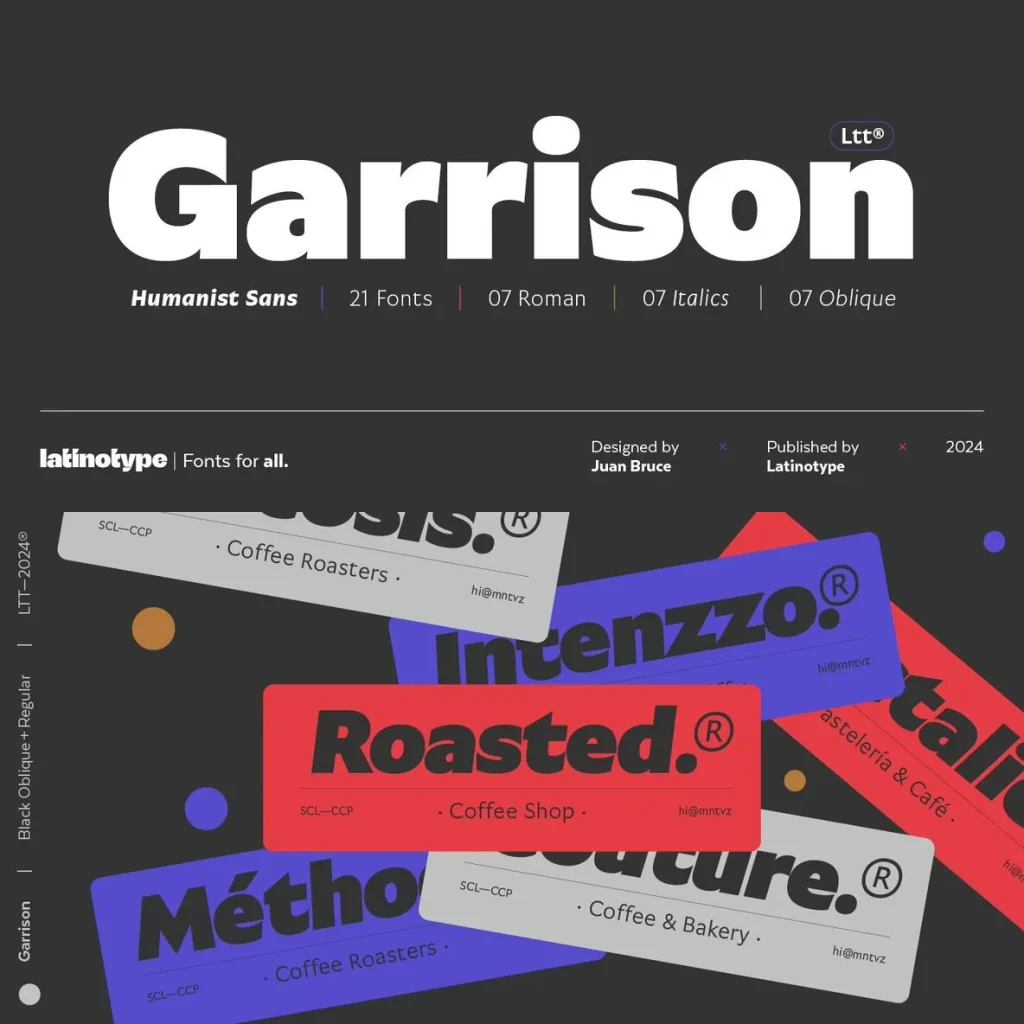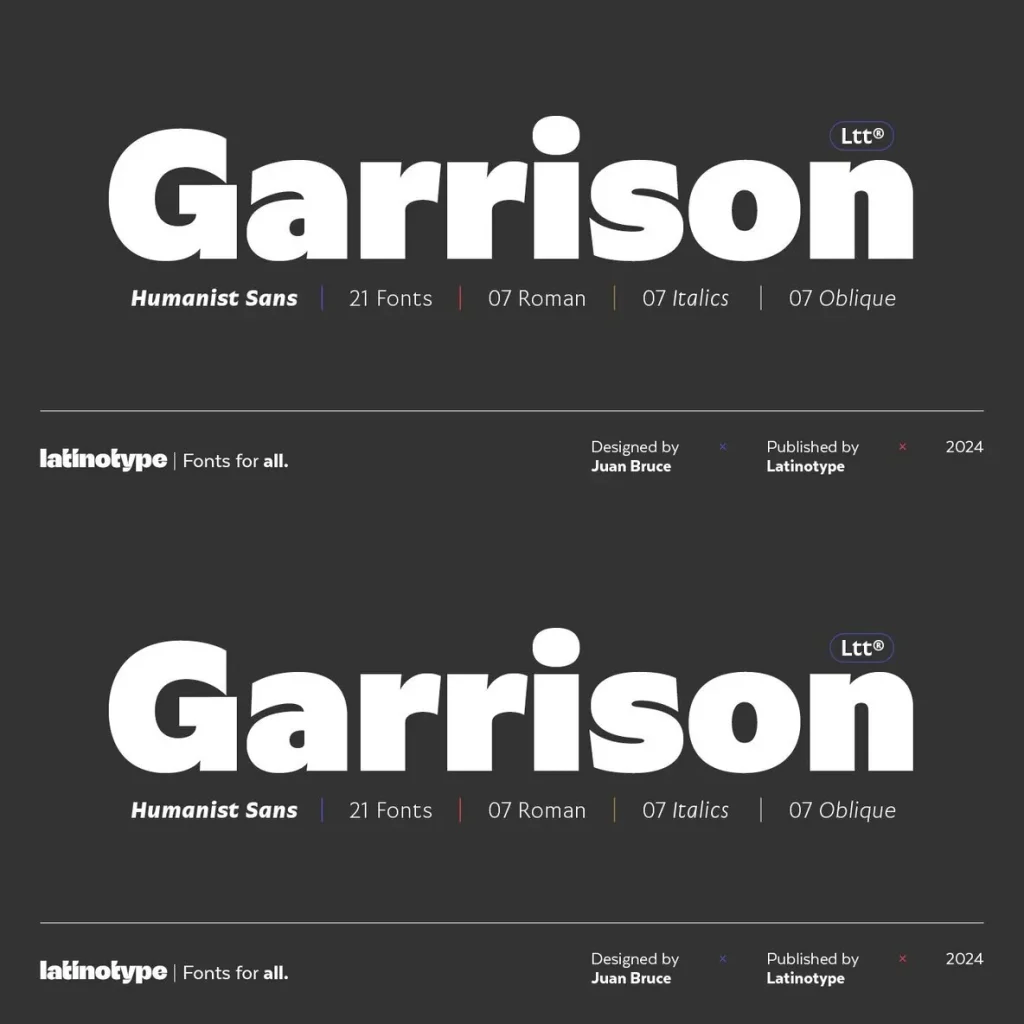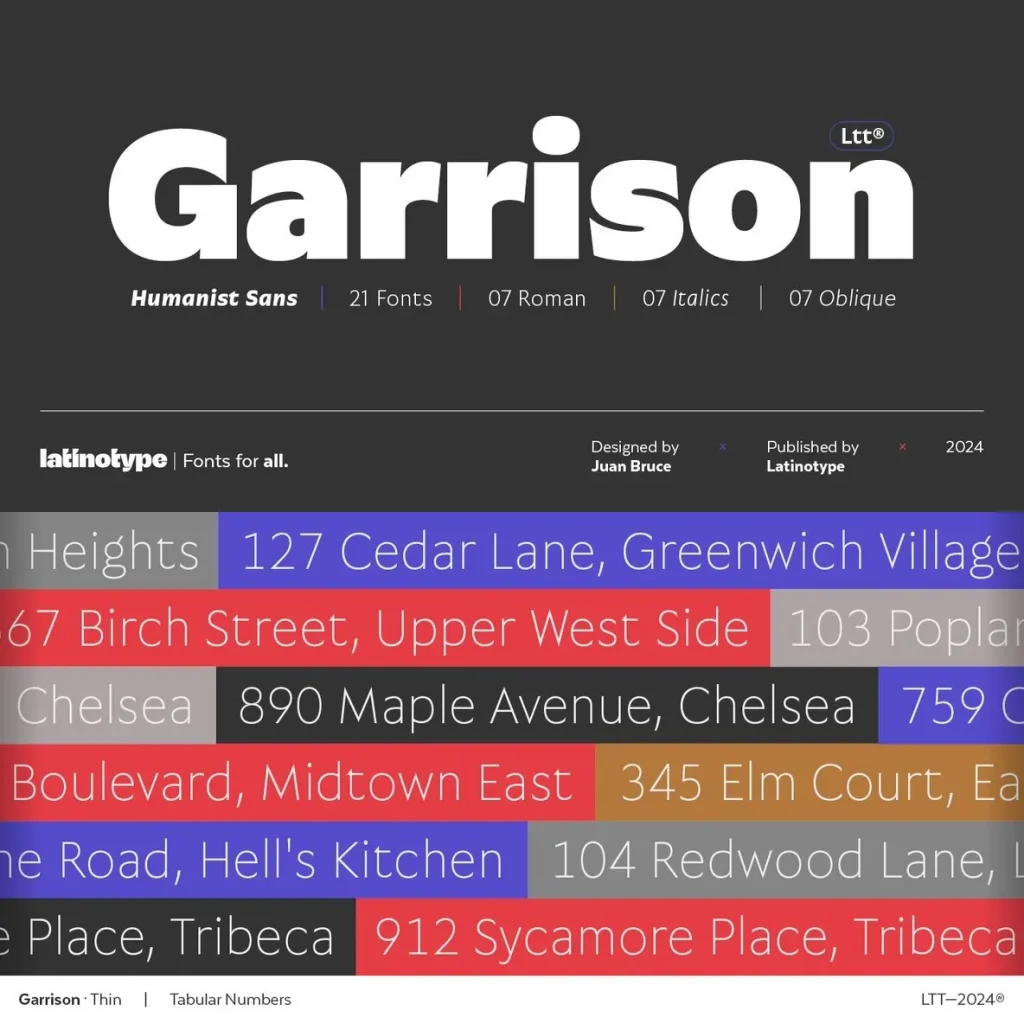
Contemporary Humanist Sans Serif Typeface
Garrison offers a modern take on the English humanist sans serif, merging subtle geometric edges with an inviting, organic structure. Its character is both approachable and confident, balancing clarity and warmth for a variety of design applications.
With seven weights and a unique dual italic set, Garrison adapts seamlessly to branding, editorial work, and digital interfaces. The typeface delivers professional results for designers who value nuance and flexibility without sacrificing readability or presence.
Key Features
Seven versatile weights
Distinct dual-italic options
Humanist style with geometric refinement
Optimized for both display and text use